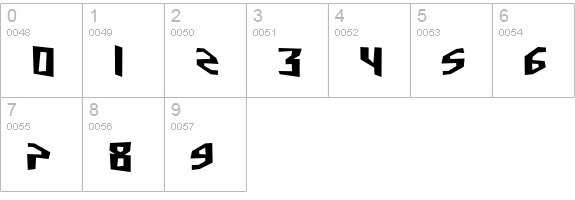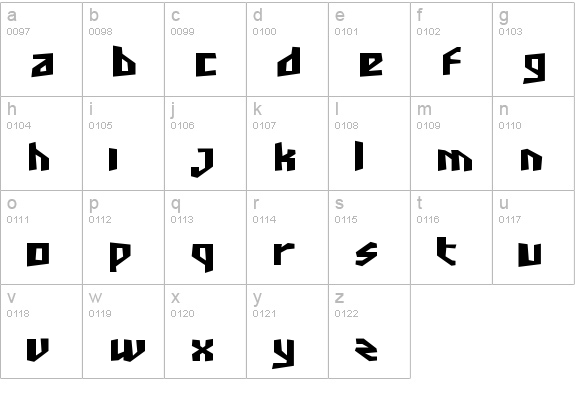
SF Junk Culture Bold Font Details
SF Junk Culture Bold is a strong, high-contrast variant in the SF typeface family \xE2\x80\x94 well suited to headlines, attention-grabbing titles, and strong calls-to-action.
Introducing SF Junk Culture Bold, a mesmerizing display font that encapsulates the essence of urban decay and grunge aesthetics. With its bold and robust design, this typeface stands out with its edgy and rebellious charm, making a bold statement in any design project. SF Junk Culture Bold is a perfect choice for projects that require a touch of raw energy, such as album covers, movie posters, street art, or any design that aims to capture the essence of the vibrant and electrifying cityscape. This font offers a wide range of uppercase and lowercase characters, providing versatility and flexibility in creating captivating typography. Each letter is meticulously crafted with intricate details, giving a sense of authenticity to your designs. But what makes SF Junk Culture Bold even more remarkable is that it is freely available to download at FontsMarket.com. Yes, you read that right – you can acquire this stunning font without any cost. Whether you are a professional designer or an aspiring artist, this font allows you to unleash your creativity without any financial restraints. So, why wait? Download SF Junk Culture Bold now and let your designs embrace the gritty, urban vibes that will captivate your audience. With its bold and daring personality, this font will undoubtedly elevate your projects to a whole new level, making a lasting impression on anyone who lays their eyes on it. Get ready to break free from the ordinary and embark on an adventurous typographic journey with SF Junk Culture Bold.